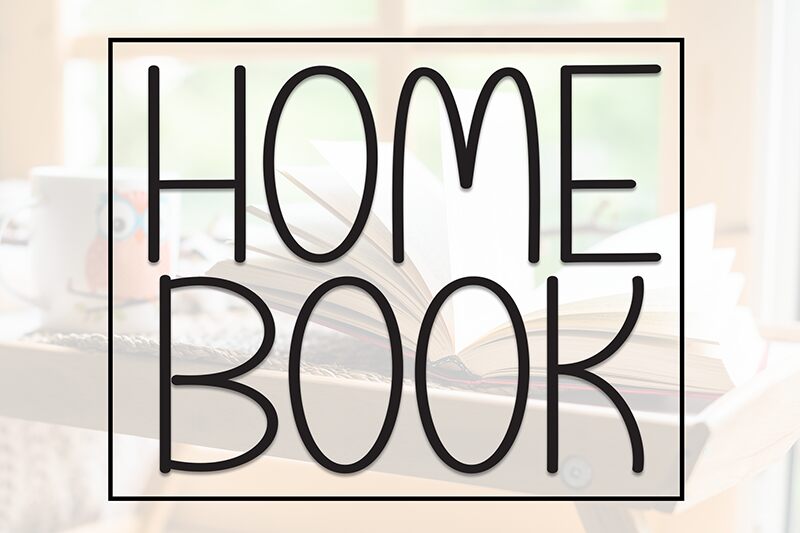
Home Book
Home Book font by Andi Moz is a friendly free handwritten font. Home Book has an organic and light style that’s also considered casual, contemporary, and approachable. It’s mostly used to add unique charm to text styles, making them look relevant, attractive, and professional.
This font is suitable for book covers/insides/outsize, online blogs/websites content or pages styles, artist signature use in paintings or fabricated art of all sorts including fashion.